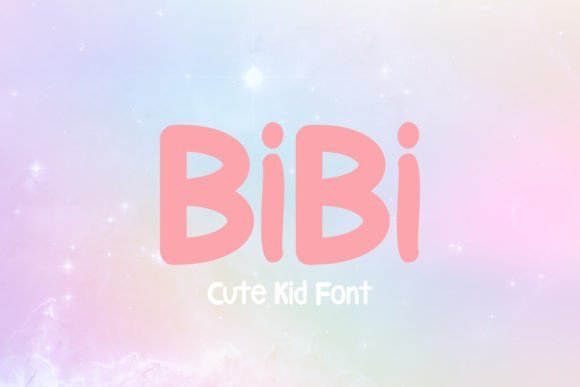
Bibi Font: The Perfect Companion for Whimsical Designs
As a designer, there’s nothing quite like the thrill of creating a new project that brings a smile to your face. For me, it’s the moment when a client shares their vision for a children’s book or a playful brand identity, and I get to dive into the world of imagination and creativity. It’s in these moments that I reach for my trusty Bibi Font – a curved and simple display font that adds a touch of magic to any design.
Bibi Font is more than just a font; it’s a key to unlocking the perfect blend of fun and professionalism. With its cute and playful style, it’s the ideal choice for designers working on projects related to kids, from educational materials to children’s clothing brands. Its versatility makes it a valuable asset in any designer’s toolkit, and its ability to add a touch of whimsy to any design makes it a standout choice for creatives looking to bring a smile to their audience’s faces.
Bibi Font Key Features
- Font Family: Bibi is a sans-serif font family designed for digital use.
- Resolution: Bibi is designed for high-resolution displays, making it ideal for use on retina screens and high-definition monitors.
- Unique Characteristics: Bibi features a clean and modern design with a focus on legibility and readability, making it suitable for body text and headlines.
Bibi Font Review
Overall, I found the Bibi font to be a charming addition to any design project. The font’s unique blend of whimsy and elegance makes it perfect for creating a one-of-a-kind visual identity.
- Customizable: The Bibi font comes in a variety of weights and styles, making it easy to find the perfect fit for your design project.
- Whimsical Touch: The font’s unique letterforms add a touch of playfulness to any design, making it perfect for branding, advertising, and other creative projects.
- Legibility: Despite its whimsical nature, the Bibi font remains highly legible, making it suitable for body text as well as headlines.
- Overuse: The font’s unique style can become overwhelming if used too extensively, so be sure to use it judiciously to avoid overdesigning.
Overall, I would recommend the Bibi font to designers looking for a unique and eye-catching addition to their projects. While it has its limitations, the font’s charms far outweigh its drawbacks.
The Bibi Font is ideal for creating feminine and elegant designs. Use it for:
- Baby-related designs, such as nursery decor and baby shower invitations.
- Feminine business branding and marketing materials.